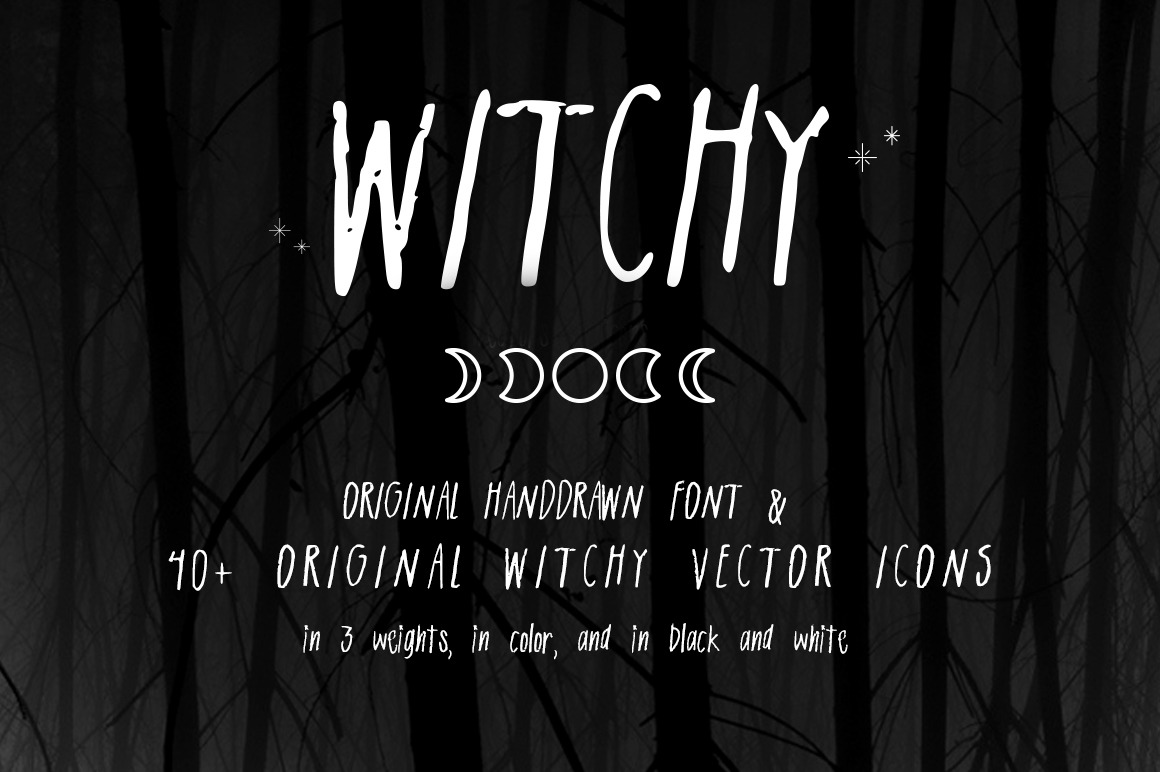
Witchy: Vector Pack + Font
Sisters of the Night, haunted house enthusiasts, Ouija board lovers, Halloween supporters, members of a local coven: This is the vector pack and font for you!
Witchy comes with over 40 original vector illustrations and an originally SPOOooOOOooOKY font perfect for cards, icons, website design, blogs, posters, print projects, and hauntings!